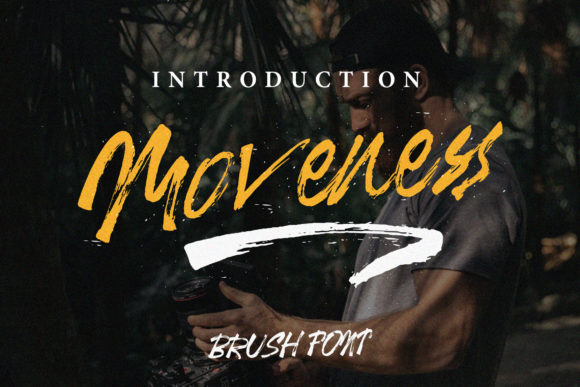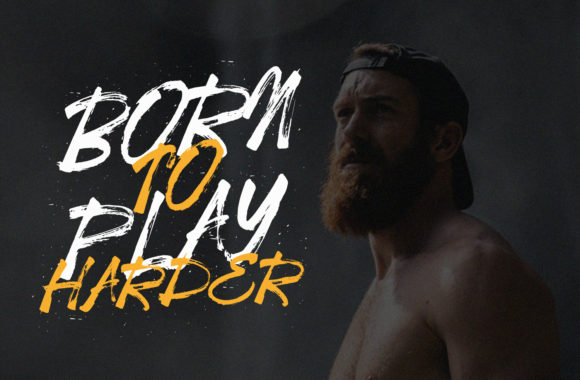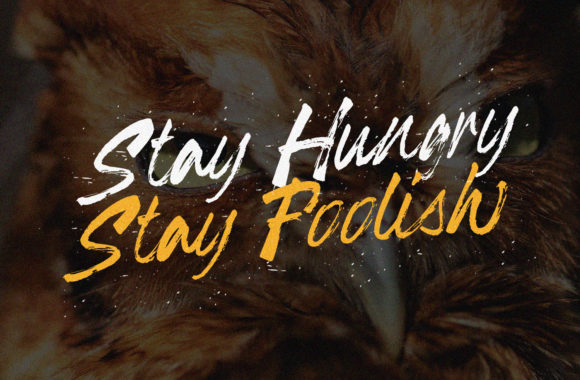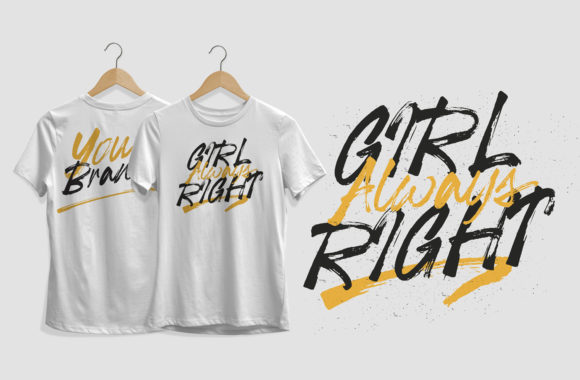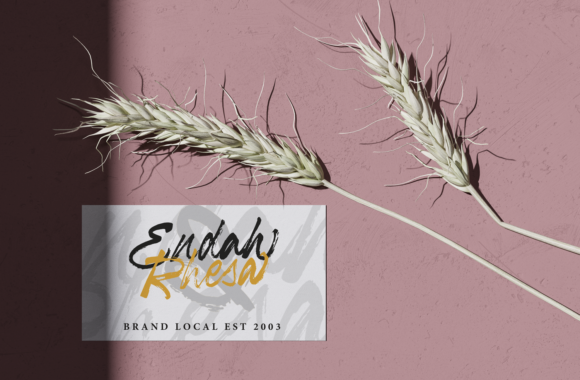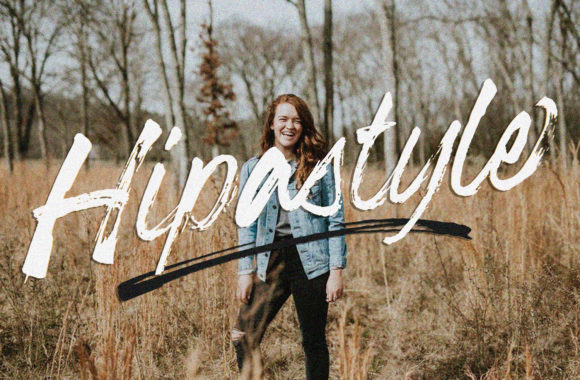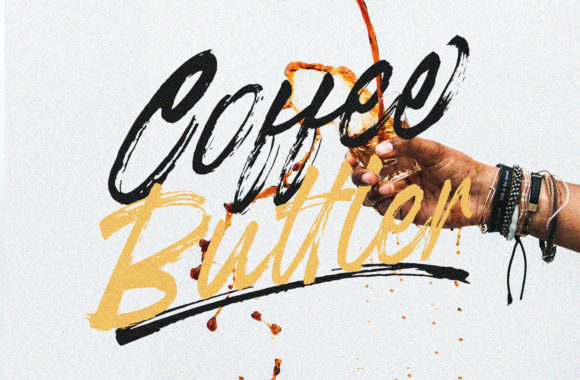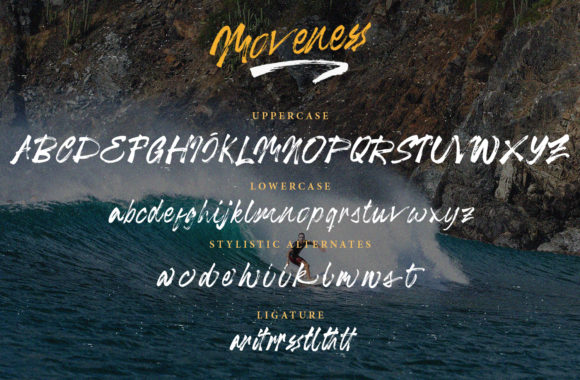
Moveness Brush Font
About Moveness Brush Font
Moveness is a bold and unique handwritten font with an authentic spark. It will put a contemporary, urban spin on any design project!